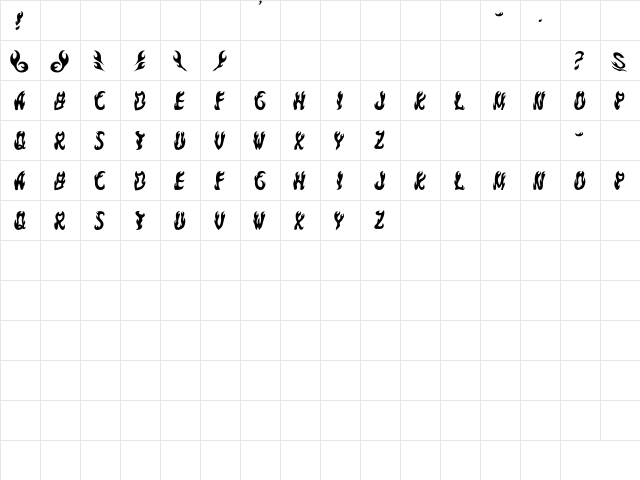
yaki goma Gomarice Fnot Font Preview
yaki goma Gomarice Fnot
Design Context for yaki goma Typeface
yaki goma is a composed and adaptable typeface that performs quietly and consistently across a wide range of design contexts.